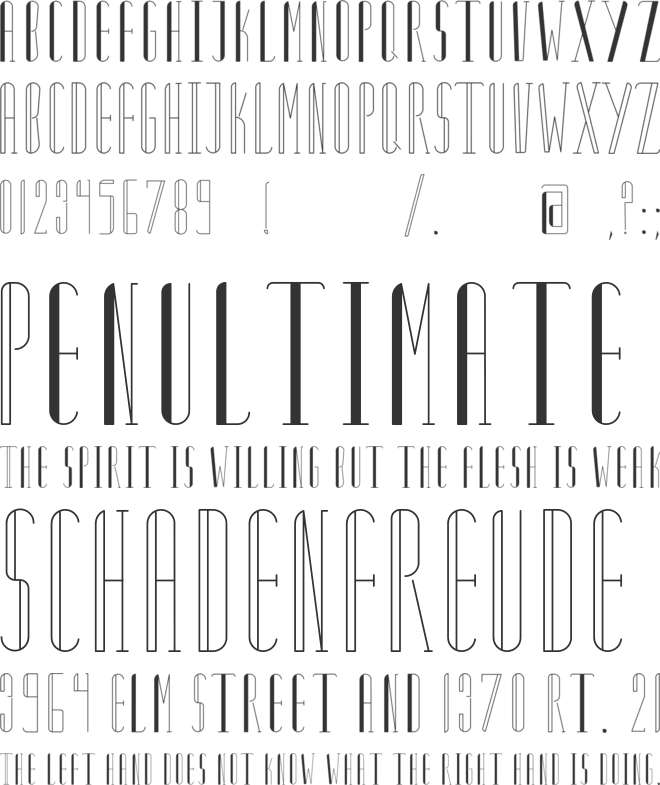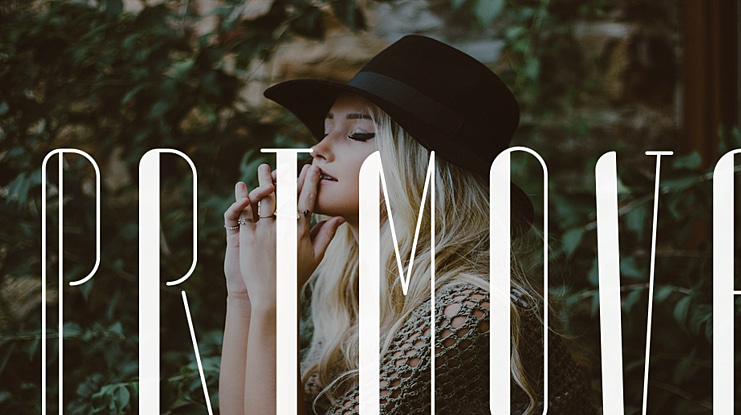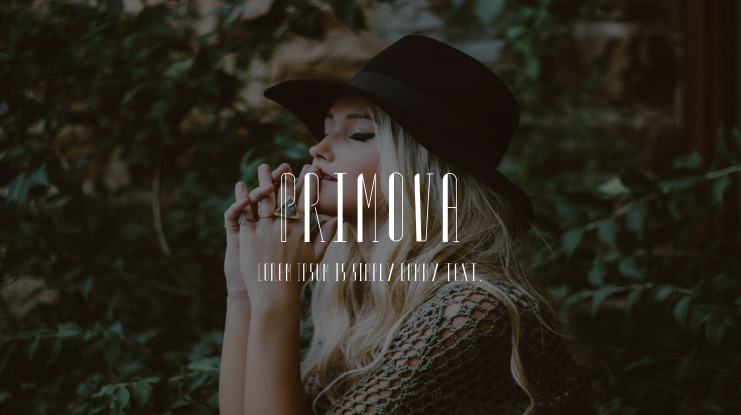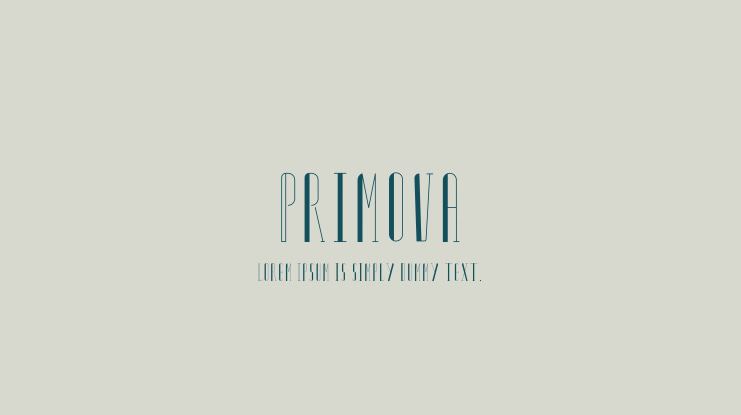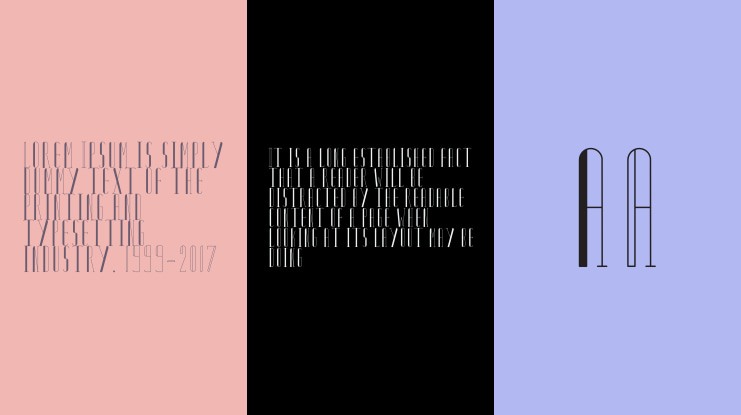
Primova Font
Primova is a free display font made with FontSelf. I would love to see how you are going to use it. Send me a DM at @blazardsky on instagram :)